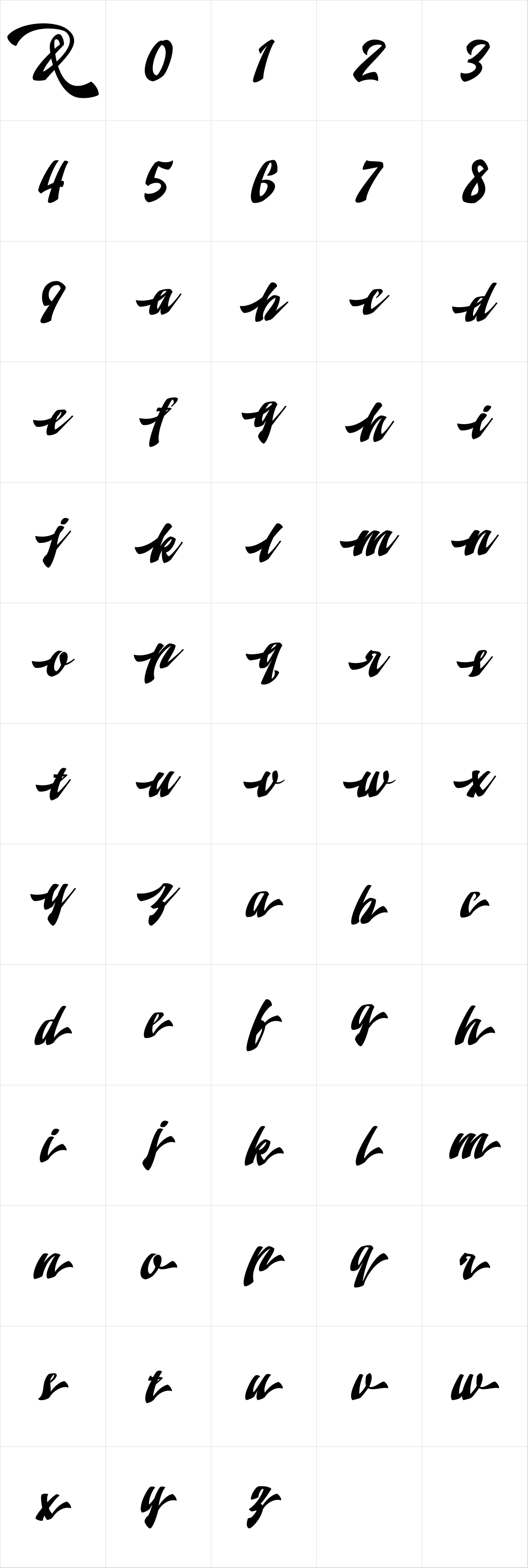
Doedel Alternate 7 Multiple Font
- Doedel is a strong-vintage script font that comes with over 800+ glyphs and is equipped with a host of OpenType features, works well at large size and making it a breeze to customize for your design. Doedel is suitable for t-shirt design, retro design, vintage design, headline, website title, logo, sport, package or etc. To access the alternate glyph you need a program that supports OpenType features such as Adobe Illustrator CS & CorelDraw X6-X7 or you can install the multiple font for Photoshop CS or etc. Multiple font will make you easier to get the glyph you want without open type program. OTF & TTF font format is also available for use on both PCs and Macs. Thank you so much!